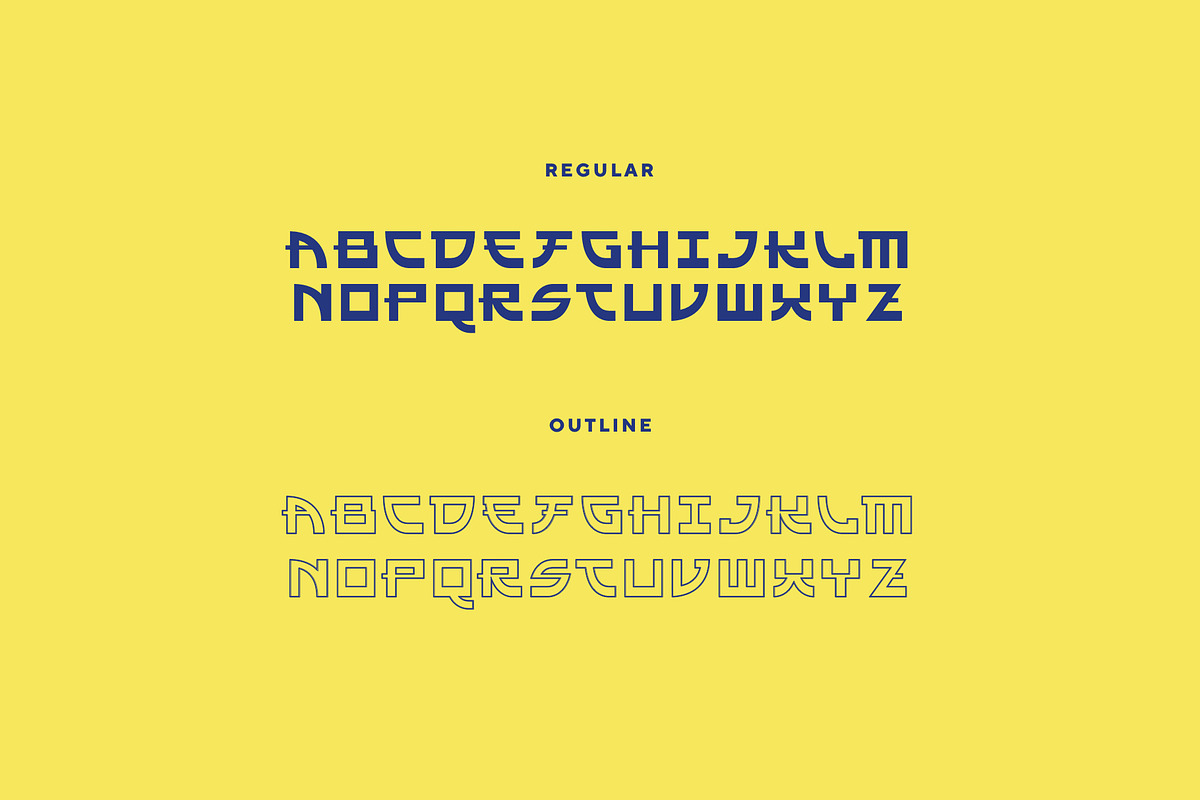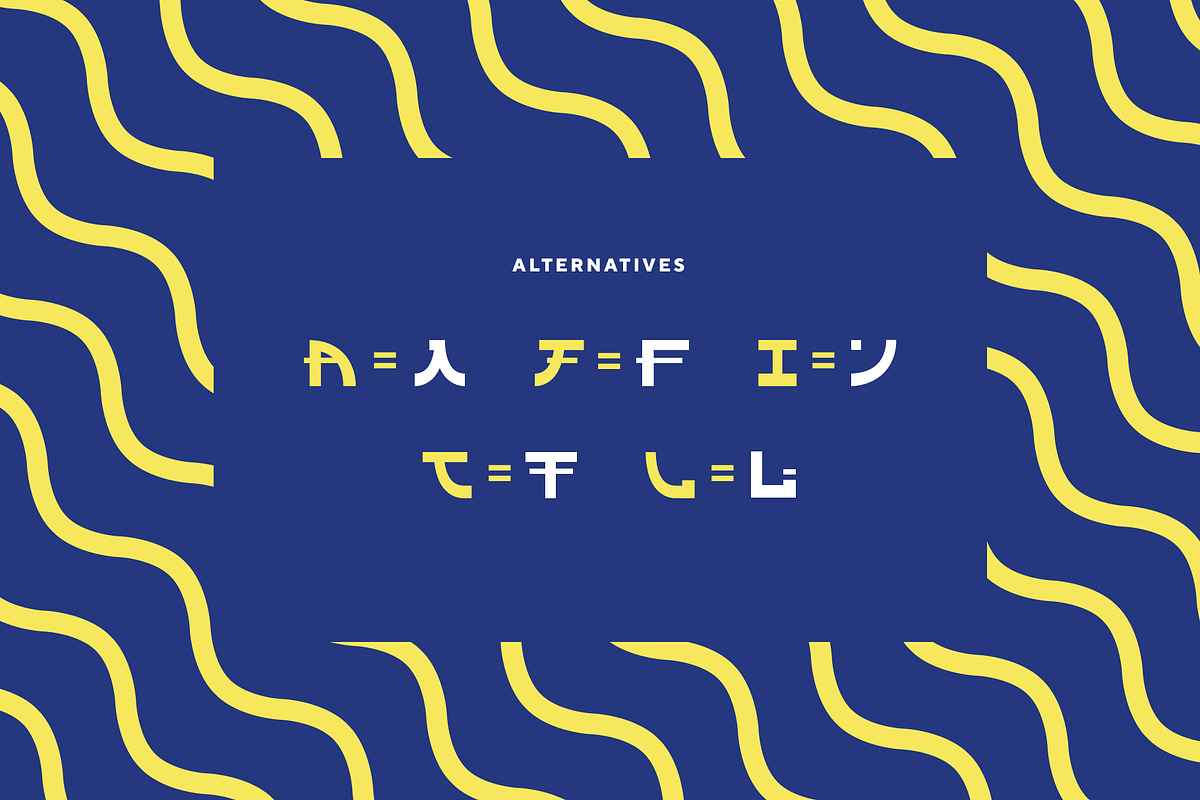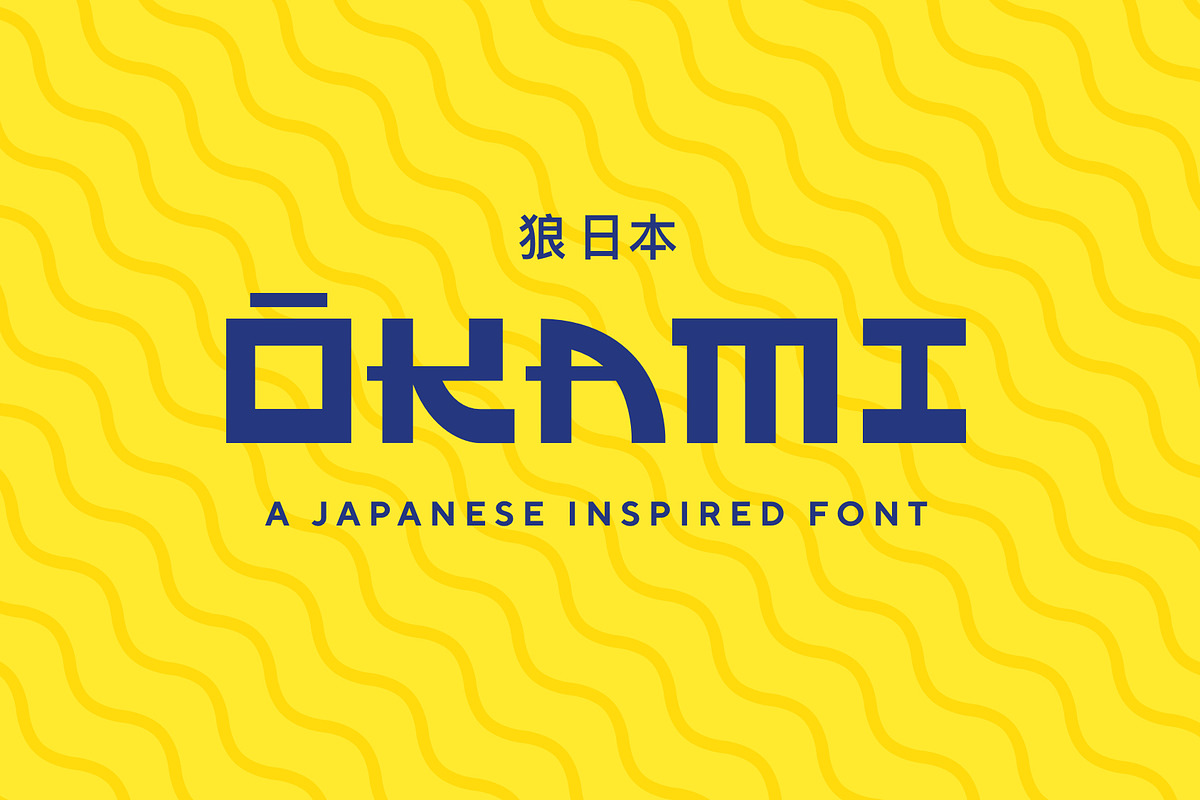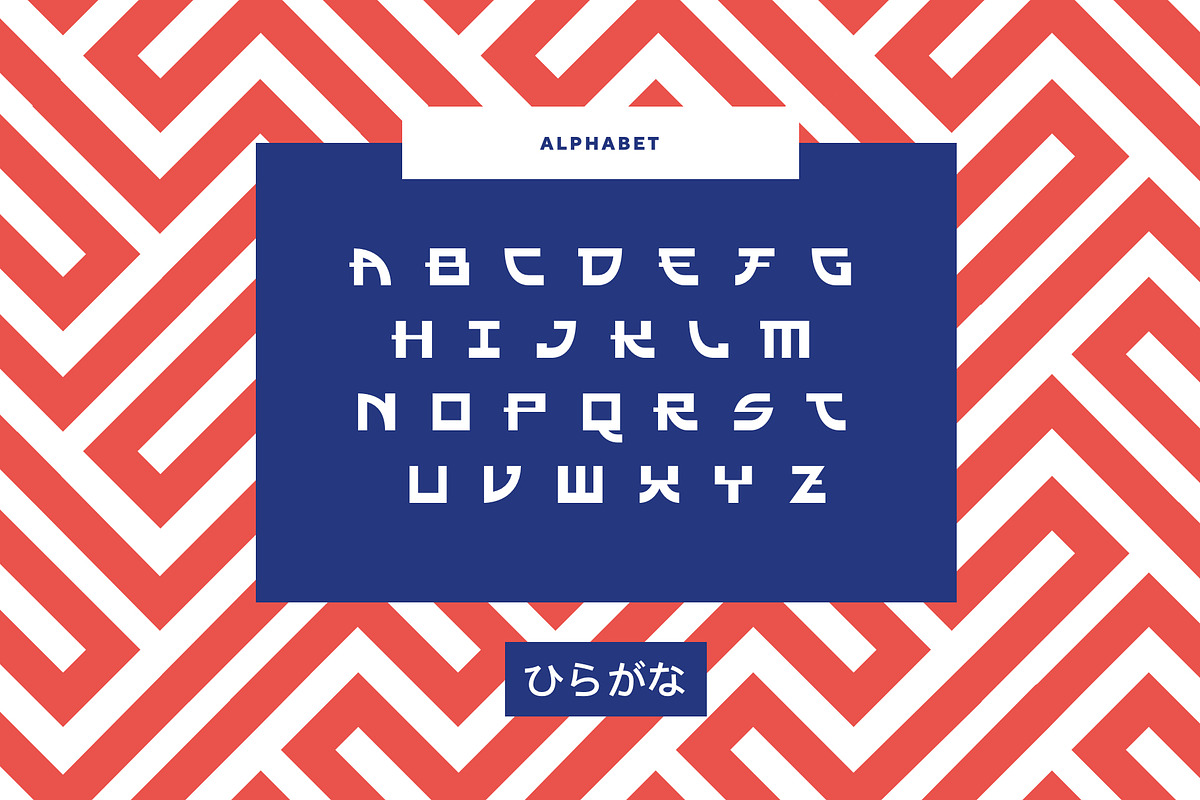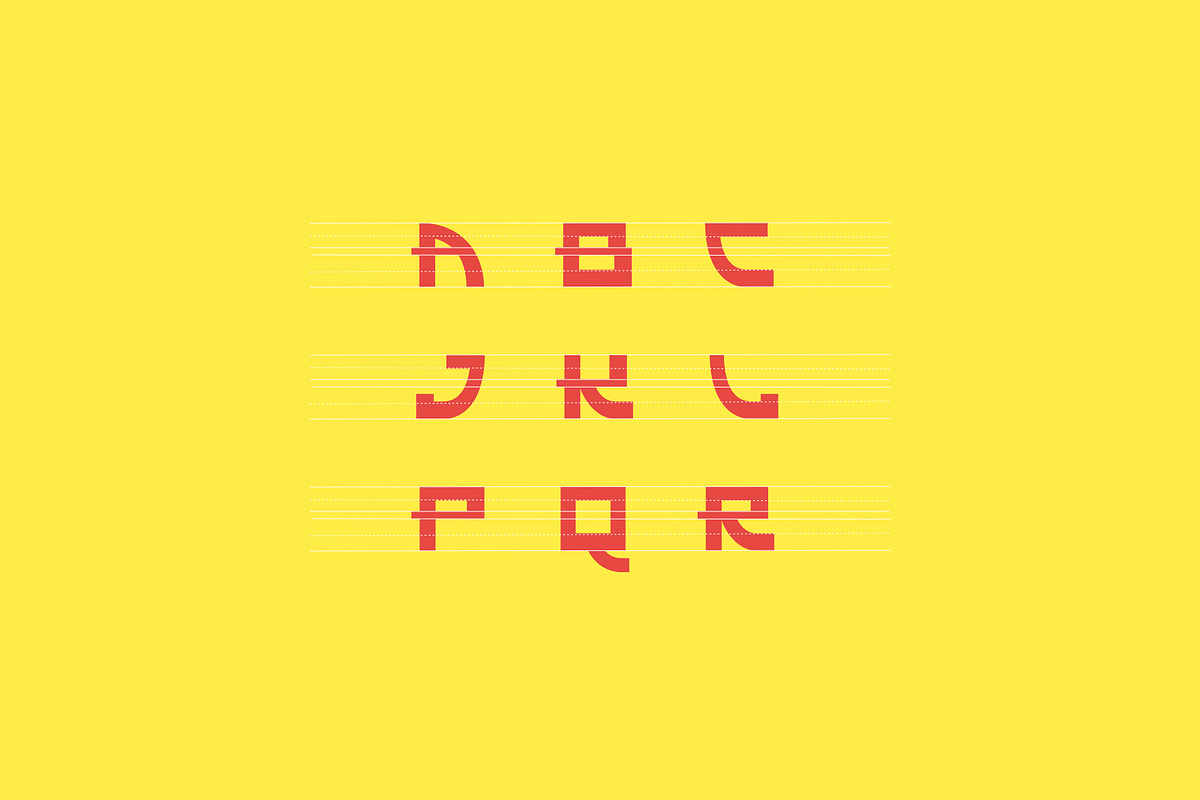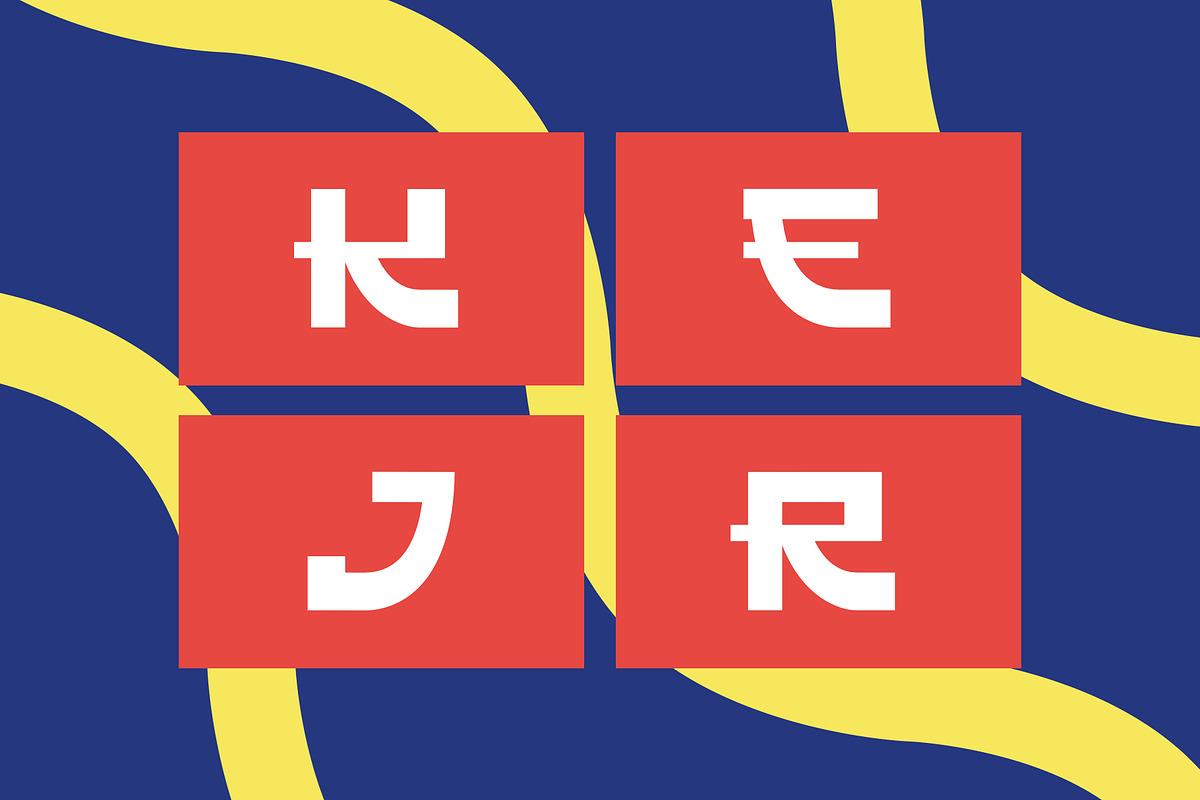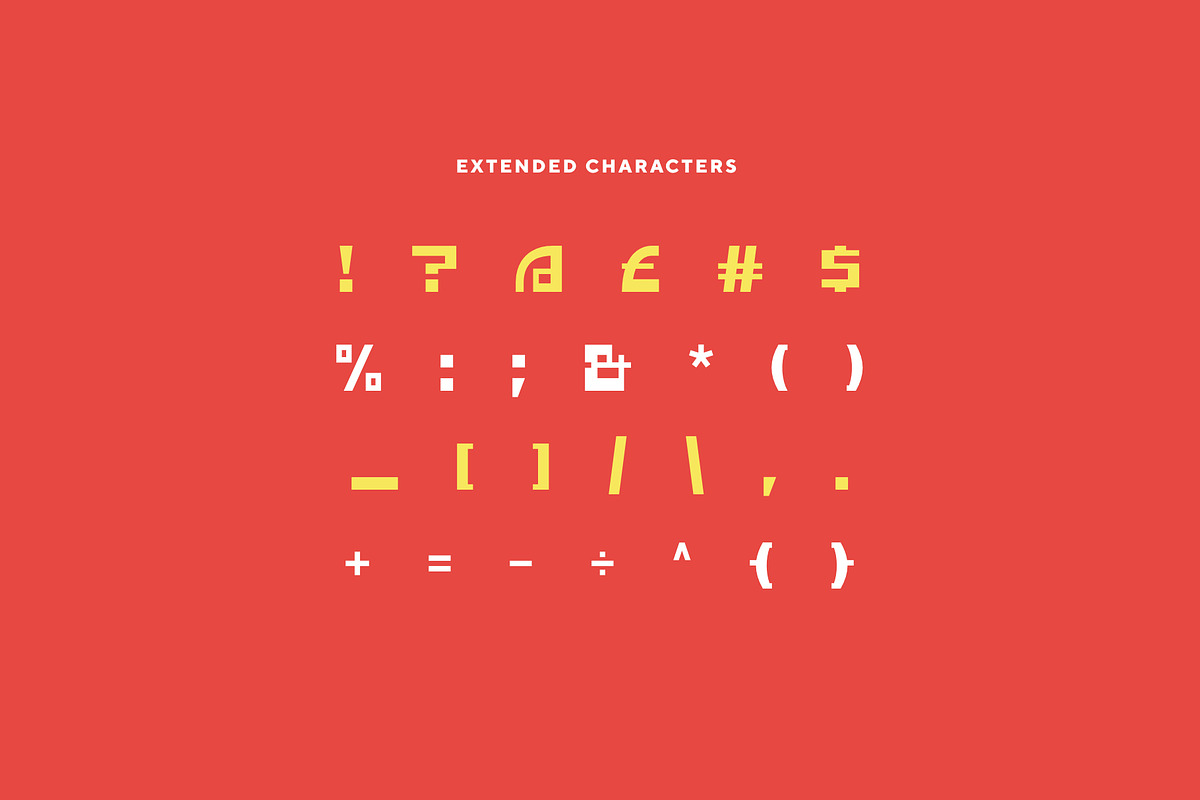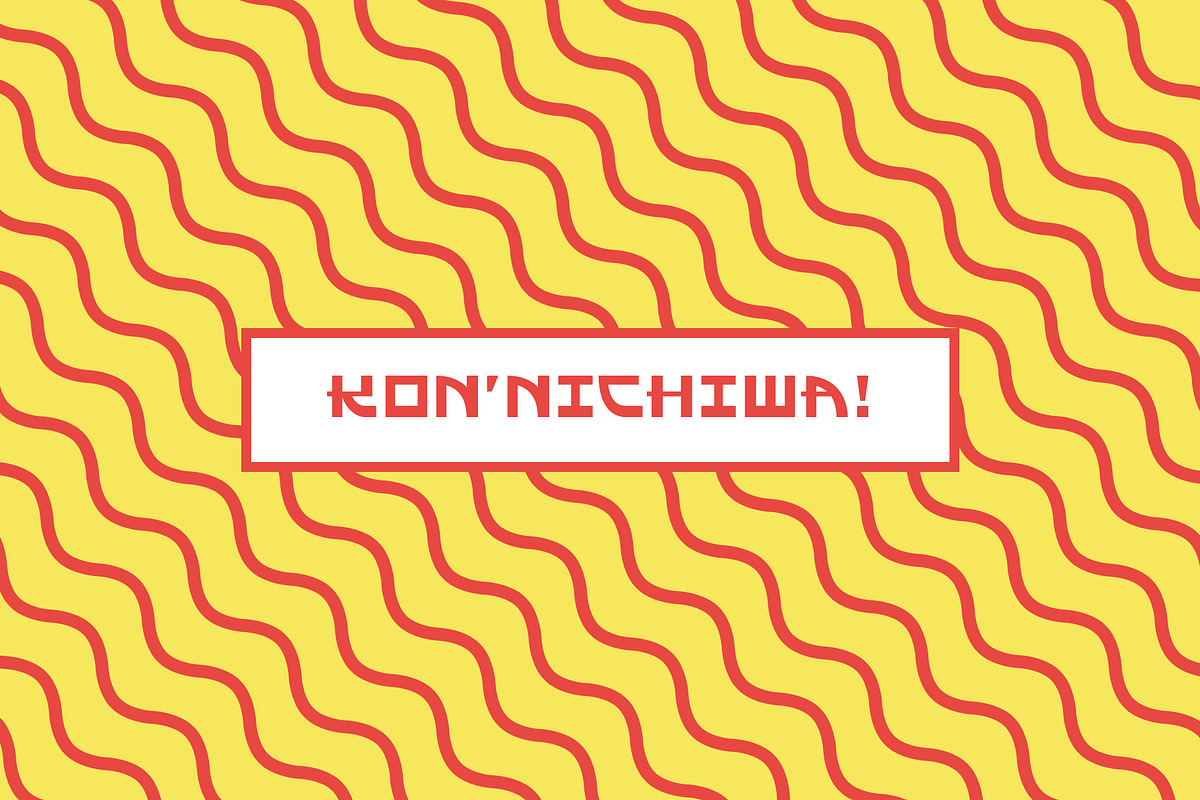
OKAMI | Display Font
OKAMI - A Japanese Inspired Font
OKAMI is a modern uppercase font inspired by contemporary Japanese design and is most suited as a decorative display font. It has a uppercase display featuring a regular & outlined font with over 100 different characters & glyphs.
- Okami Regular
- Okami Outline